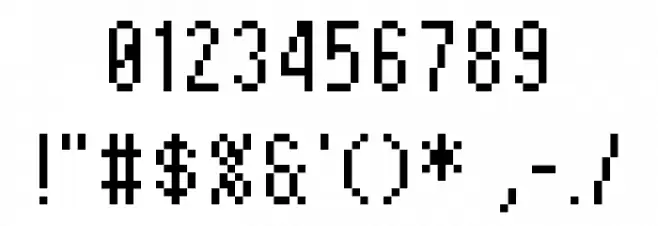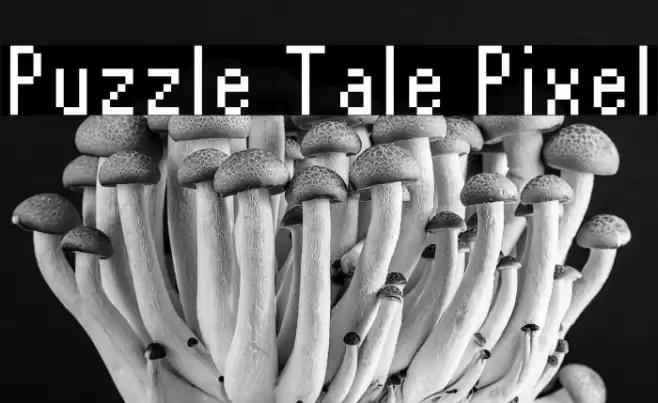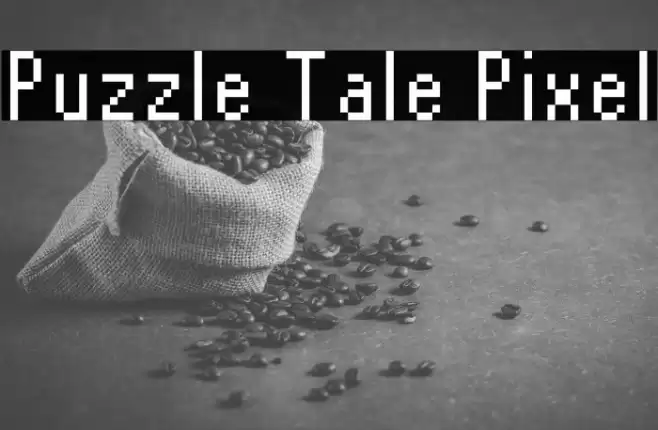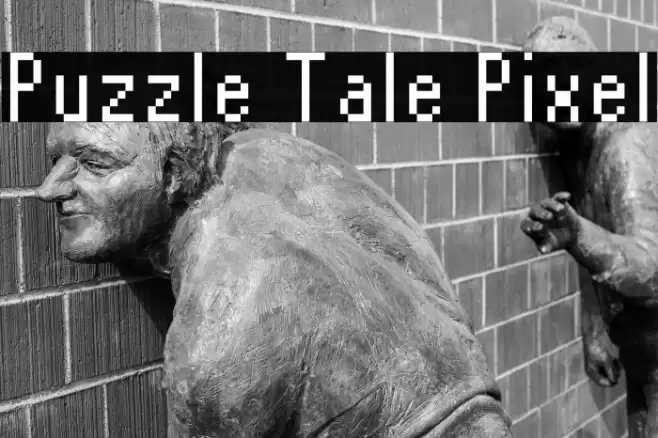
Puzzle Tale Pixel Font
Puzzle Tale Pixel Description
This font features a pixelated, blocky design reminiscent of early digital displays and retro video games. Each character is composed of uniform square pixels, giving it a distinctly digital and nostalgic feel. The uppercase and lowercase letters maintain a consistent height, while the numbers and special characters are crafted with the same pixelated precision. This style is highly legible and evokes a sense of simplicity and clarity, making it ideal for projects that aim to capture a vintage or tech-inspired aesthetic.
A pixelated, retro-style font with a digital, blocky appearance from Uncategorized fonts.
- Proposed Projects: Ideal for retro video game designs, digital art projects, tech-themed posters, and nostalgic branding.
- Overall Style: Vintage
- Use Case: Logos, Headlines, Digital displays